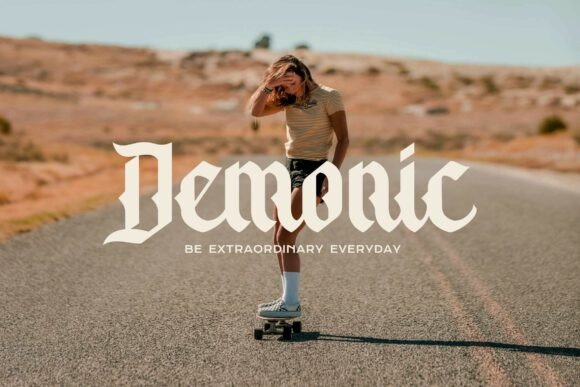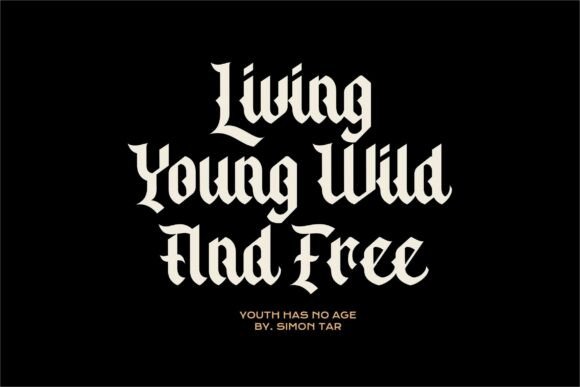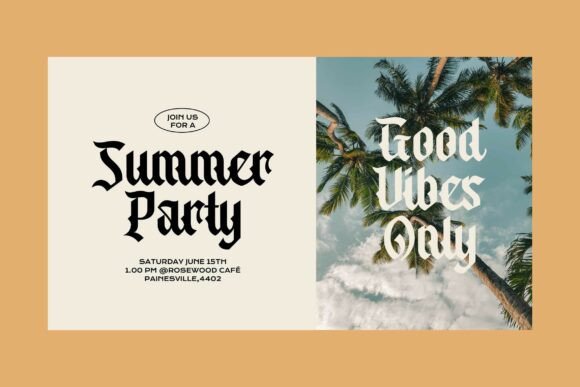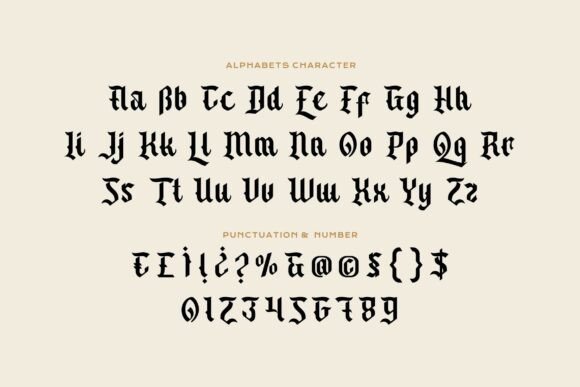
Introducing Ghitalk Font: The Perfect Blend of Gothic Tradition and Modern Flair
In the world of typography, few fonts manage to strike a balance between historic roots and contemporary style. Ghitalk Font is one such exceptional typeface that seamlessly merges the strength of traditional Gothic typography with a sleek, modern aesthetic. This modern blackletter display font is designed to make a statement, offering a unique blend of rebellion, tradition, and artistry that is sure to elevate any design project.
The Essence of Ghitalk Font
Ghitalk Font boasts sharp serifs, dramatic strokes, and a rhythm that effortlessly blends vintage and modern elements. This distinctive combination gives Ghitalk its unique character, making it perfect for designs that demand attention and exude a sense of boldness. Whether you’re working on streetwear designs, skate culture projects, nightlife promotions, or bold editorial layouts, Ghitalk Font delivers an unforgettable visual impact that amplifies your message.
Design Features and Benefits
One of the standout features of Ghitalk Font is its PUA (Private Use Area) encoding. This means that users have effortless access to all glyphs, swashes, and alternate characters, making the design process smoother and more efficient. The font’s versatility is further enhanced by its range of design applications, from fashion and lifestyle to editorial and promotional materials.
Applications of Ghitalk Font
- Streetwear and Fashion: Ghitalk’s bold and edgy aesthetic makes it a perfect fit for streetwear brands and fashion designers looking to make a statement.
- Skate Culture: The font’s rebellious and dynamic vibe resonates well with the skate culture, adding an authentic touch to any design.
- Nightlife Promotions: Use Ghitalk to create eye-catching posters, flyers, and social media graphics that capture the essence of nightlife and events.
- Editorial Layouts: Add a touch of sophistication and drama to your editorial designs, such as magazines, newspapers, and blogs, with Ghitalk’s unique blend of Gothic and modern elements.
The Artistry of Ghitalk Font
Ghitalk Font is not just a typeface; it’s an artistic expression that combines tradition with modernity. Its design elements are carefully crafted to evoke a sense of rebellion and nonconformity, while still paying homage to the rich heritage of Gothic typography. This balance makes Ghitalk a versatile tool for designers and crafters looking to push boundaries and explore new creative avenues.
Why Choose Ghitalk Font?
- Unique Aesthetic: Ghitalk offers a distinctive look that sets it apart from other fonts, ensuring your designs stand out.
- Versatility: Suitable for a wide range of design applications, from digital to print.
- High-Impact: Perfect for designs that require a bold and memorable visual presence.
Ghitalk Font is a game-changer for designers and crafters looking to infuse their projects with a unique blend of Gothic tradition and modern flair. Its sharp serifs, dramatic strokes, and vintage-meets-modern rhythm make it an exceptional choice for anyone seeking to create bold, eye-catching designs. With its PUA encoding and versatile applications, Ghitalk is poised to become a go-to font for creative professionals worldwide. Elevate your designs with the unparalleled style and impact of Ghitalk Font.